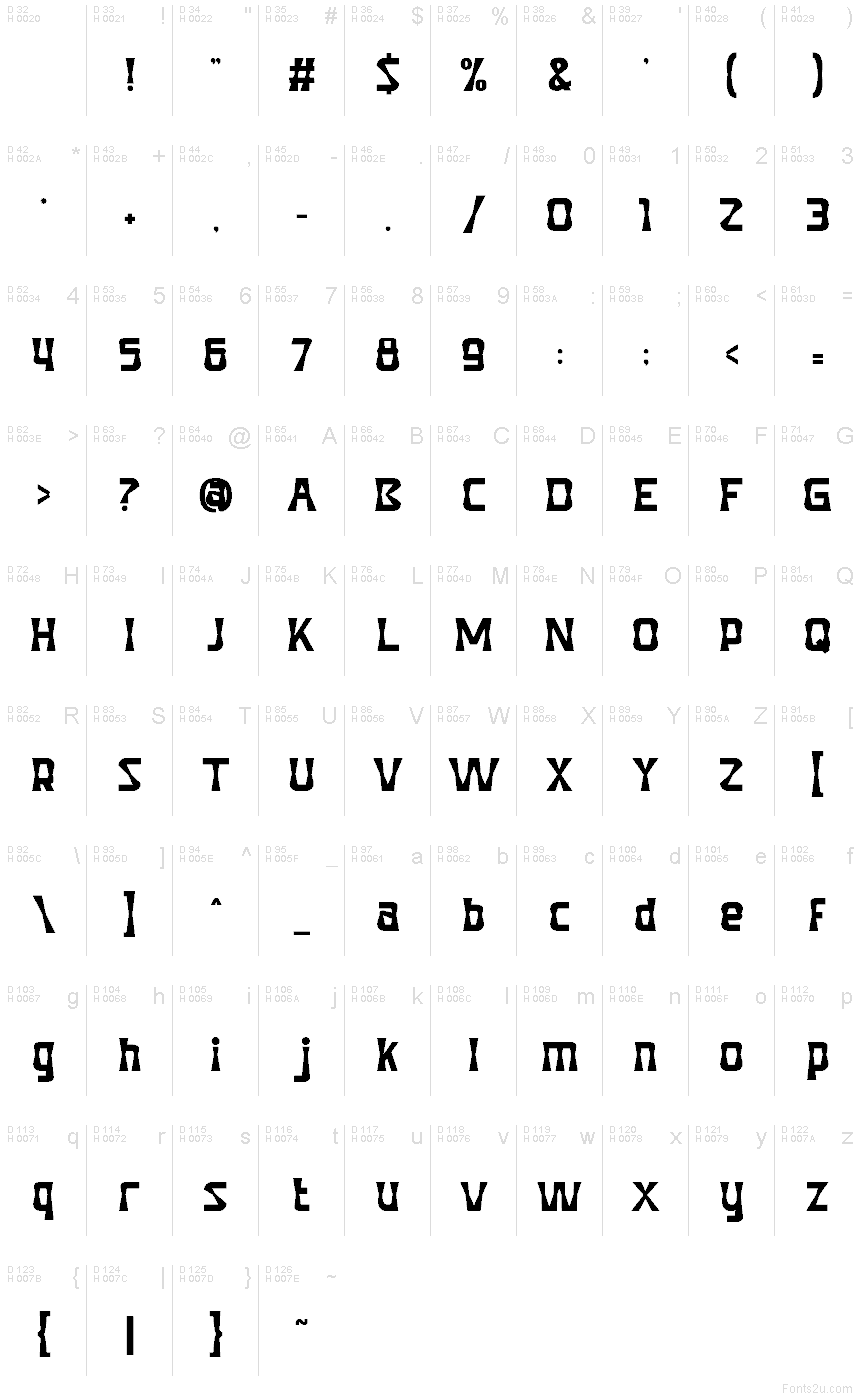
Burgs Decorative
Burgs Decorative font by PutraCetol Studio is a geometric-inspired display typeface with ornate details for a retro yet futuristic vibe. It looks to have been inspired by the art deco style which continuously captivates designers with its elegant shapes and streamlined features. Font of a strong visual impact, this modern choice will make any of your creative work remarkable.